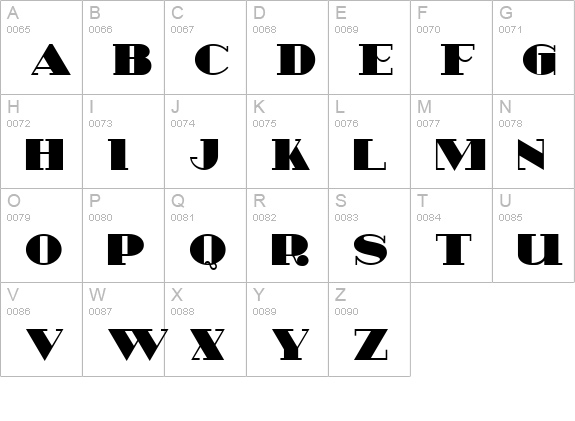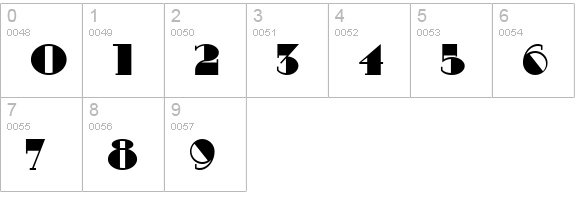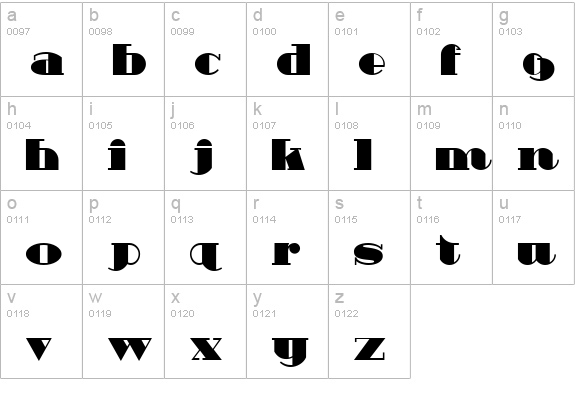
Heavy Tripp NF is a heavy, high-impact variant in the Heavy typeface family \xE2\x80\x94 well suited to high-impact headlines, posters, and display advertising.
Heavy Tripp NF font is a bold and impactful typeface designed to make a statement. With its thick strokes and sturdy appearance, this font is perfect for adding a touch of strength and confidence to any design project. Whether you're creating a poster, logo, or headline, Heavy Tripp NF will ensure that your message stands out. The best part? Heavy Tripp NF font is available for free download at FontsMarket.com! That's right, you can easily access this powerful font without breaking the bank. So go ahead and give your designs a bold and powerful touch with Heavy Tripp NF font today.